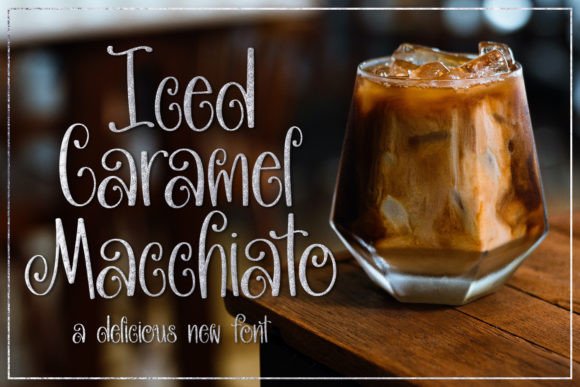
Indulge in the sweetness of Iced Caramel Macchiato, a delectable handwritten script font that will tantalize your senses and captivate your audience. Its smooth and sinuous strokes dance across the page like a sweet melody, adding a touch of playfulness and charm to every project. Designed with warmth and comfort in mind, this font evokes feelings of nostalgia and familiarity, making it the ideal choice for creating heartfelt invitations, personalized social media graphics, and branding that resonates with your customers. Immerse yourself in the cozy embrace of Iced Caramel Macchiato, and let your designs radiate with a friendly and inviting atmosphere that draws people in.
Picture the joy of receiving a handwritten letter penned with Iced Caramel Macchiato. Its elegant curves and loops mimic the flow of a gentle breeze, carrying your words with grace and finesse. Your messages will come alive with a sense of intimacy and connection, leaving a lasting impression on your readers. Whether you're creating social media posts that demand attention or crafting logos that exude charm, Iced Caramel Macchiato effortlessly elevates your designs, adding a touch of sophistication that sets you apart.
As a bonus, Iced Caramel Macchiato pairs effortlessly with other fonts, making it a versatile addition to your design arsenal. Think of it as the perfect accessory that complements your creative vision. Experiment with different combinations and discover endless possibilities to suit any project. From whimsical wedding invitations to heartwarming holiday cards, Iced Caramel Macchiato seamlessly adapts, adding its unique flavor to every design. Immerse yourself in the sweetness of Iced Caramel Macchiato, and let your creativity flow freely. Experience the joy of designing with a font that feels like a warm hug, enveloping your projects with a touch of magic and delight.